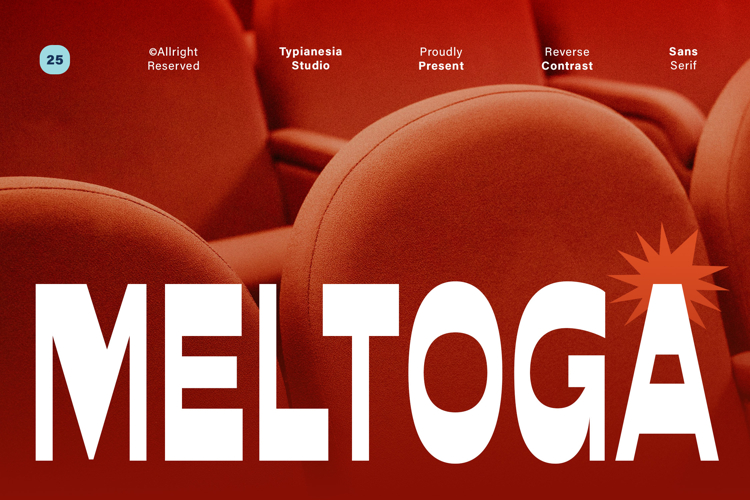
Meltoga - Bold Retro Condensed Tall Reverse Contrast
Meltoga - Bold Retro Condensed Tall Reverse Contrast - Modern Sans Logo Display Font
Meltoga is Bold Retro Condensed Tall Reverse Contrast font that transports your design back to the fun, Groovy style of the 80s. This unique display Sans typeface features a distinctive, playful Reverse Contrast, making it perfect for high-impact Posters, Packaging use and essential choice for Modern vintage Branding, particularly in the hospitality industry, perfectly elevating the aesthetic of Cafes and Coffee shops and any projects that require a touch of modern bold and retro style. Meltoga delivers an Retro charm while maintaining a clean, Bold presence, ensuring your message is both stylish and highly visible.